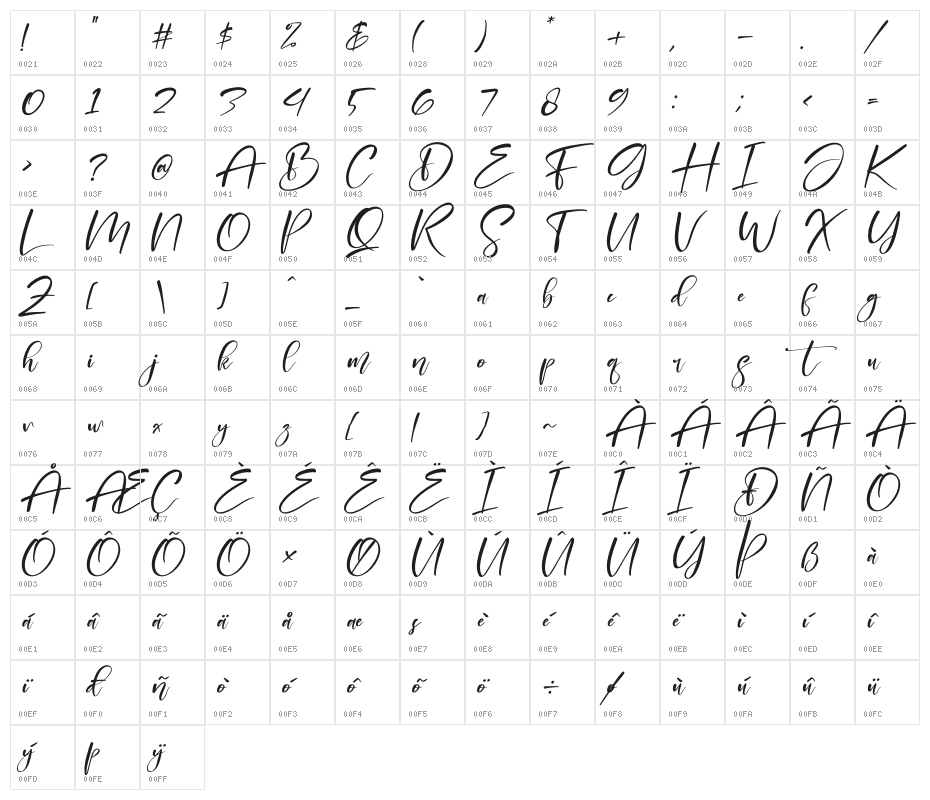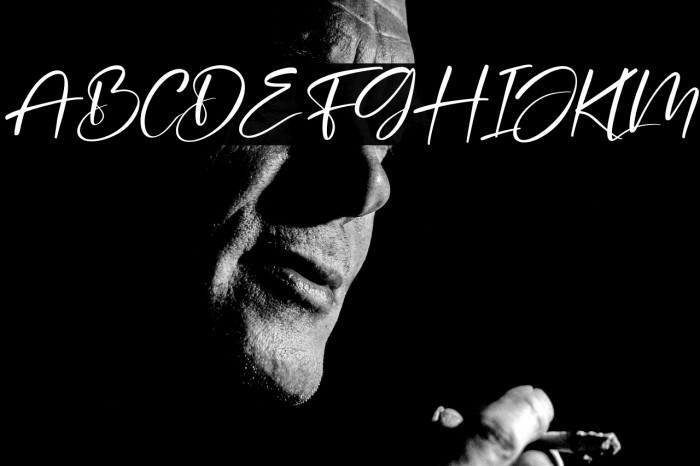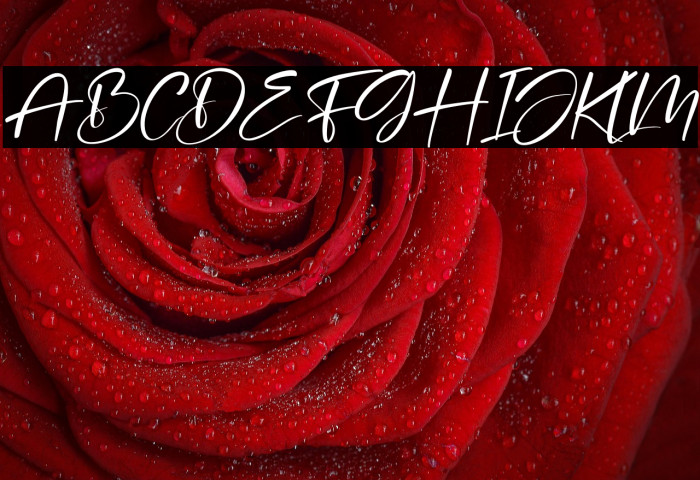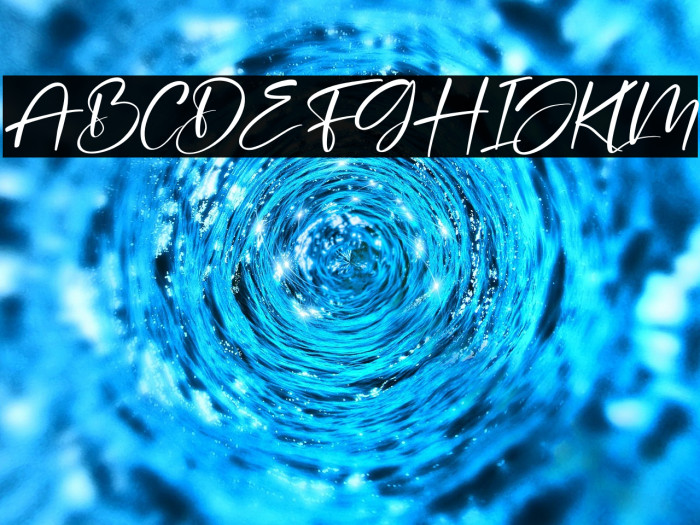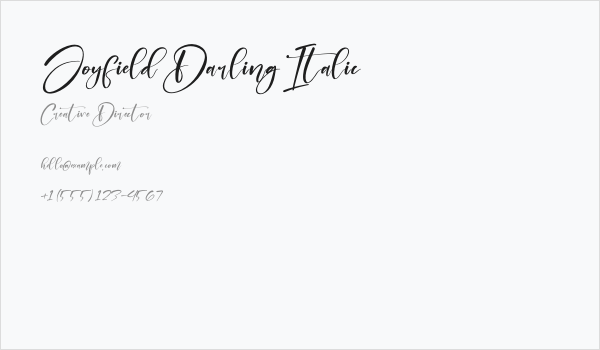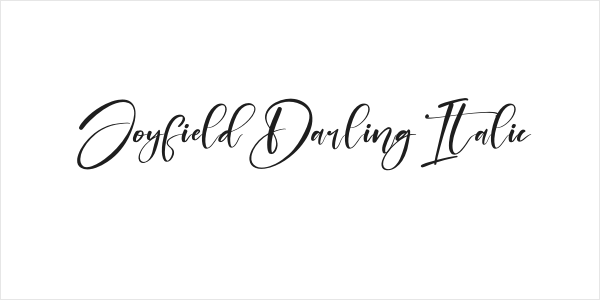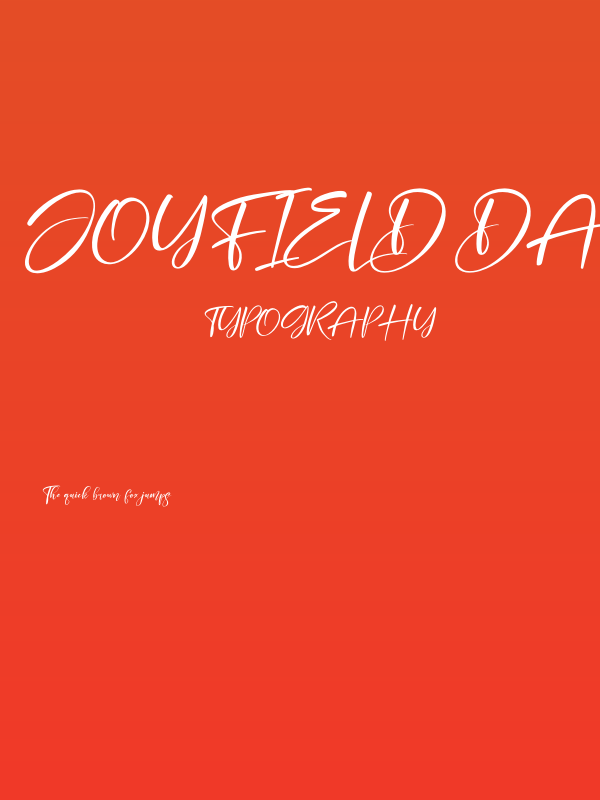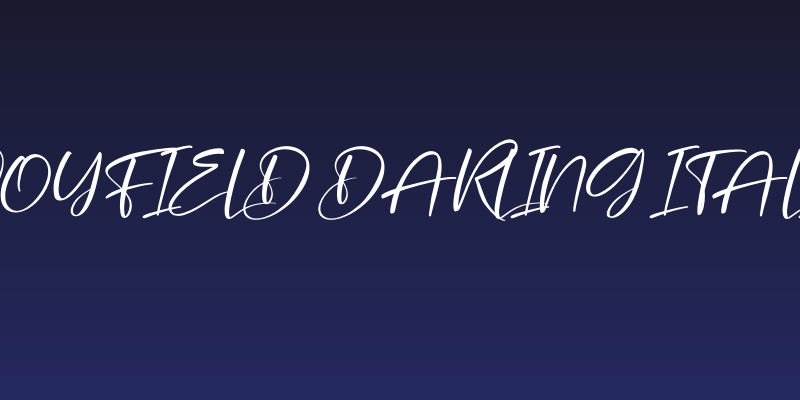
Joyfield Darling Italic Font
Joyfield Darling Italic Description
This font exudes a lively and elegant script style, characterized by its flowing, cursive letterforms. The uppercase letters are tall and graceful, with sweeping curves and loops that convey a sense of movement and fluidity. The lowercase letters maintain a consistent style, with smooth connections and a slightly playful touch. Numbers and special characters are designed to match the overall aesthetic, featuring similar curves and flourishes. The font's dynamic nature makes it suitable for creative and expressive projects, where a touch of sophistication and personality is desired.